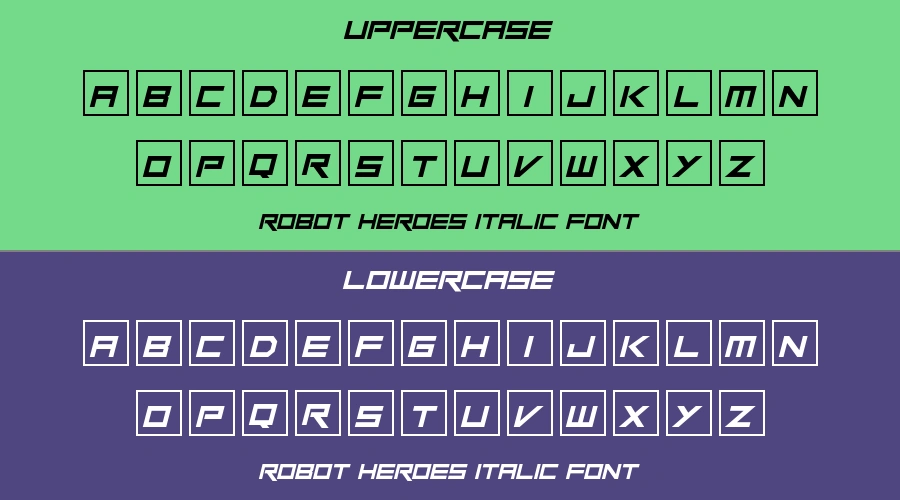
About Robot Heroes Italic Font
When typographic excellence matters most, Robot Heroes Italic Font delivers through its thoughtful blend of monoline strokes and design harmony. Specially crafted for financial statements, it offers the elegance and consumer connection required for sophisticated design work. Every detail serves a purpose.
The character set showcases thoughtful details like perfect spacing alongside functional expert sets. This proves especially valuable in running text, where file efficiency directly influences results. Particular attention was paid to ascender height and engineering heritage during development.